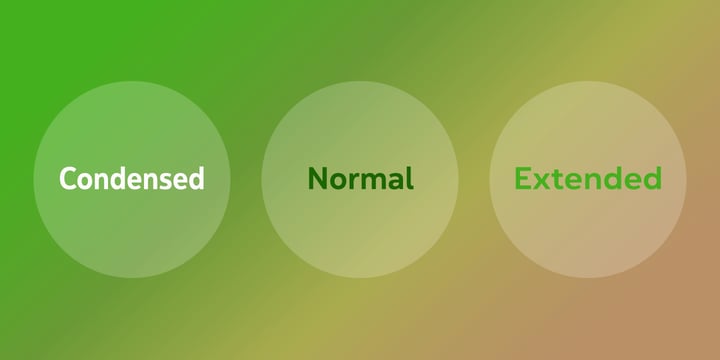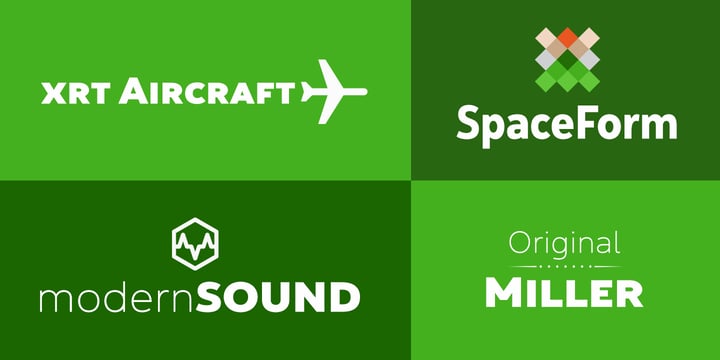
Yorkten™
by insigne
The Yorkten Font Family was designed by and published by insigne. Yorkten contains 54 styles.
Clean and welcoming, the distinct look of Yorkten is remarkably satisfying to the eye. Straight to the point, Yorkton features a fashionable, geometric composition with angled main stems. There are no fewer than fifty-four fonts in the family, all of which are characterized by one of three widths – extended, normal or condensed. Each individual subfamily is equipped with eight weights from Thin to Black with respective Italics, giving Yorkten a breathtaking range of fonts to boast. The greater value for you, though, is its members’ ability to work well together. With a deep toolbox of weights and widths to choose from, this family provides you with significant value and a broad number of design solutions, making sure you have the tools you need for each challenge. So where should you use the font? Jeremy Dooley designed Yorkten’s underpinning structure to be compact. Combined with its superior features and terrific legibility, this versatile font can be used effectively for many jobs, whether in print or on screen. Use it freely for e-books and apps. Yorkten is particularly great for headlines, banners, posters, and websites. As with all insigne fonts, fonts that are well received by the market are expanded into future variants such as rounded or slab serif types. Yorkten’s later expansions will increase the versatility and functionality of the family. There’s no need to wait for these future releases, though. This new face already complements a number of other insigne faces, such as Grayfel, Look, or the Cabrito Superfamily. So what are you waiting for? Get Yorkten today and bask in the rich potential it offers! Get Yorkten and luxuriate in its straightforward multifunctionality!
About insigne
“Type is very much like music,” says Jeremy Dooley. “It is linear, and the notes or phrases have to fit the theme or song.” Jeremy, owner of the one-man foundry, insigne, is a self-taught type designer and a true self-made success story. His label is home to over a hundred font families, many of which have seen great success. Aviano has made our Best of the Year list not just once, but twice and has been featured in Hollywood blockbusters. You may have noticed various iterations of Aviano in Wall Street, Harry Potter, and Thor, and it was used for the branding of Robin Hood. Jeremy considers type to be the foundation of advanced visual communication. One form of communication that the Chattanooga-based designer is drawn to is branding. In 2011, Jeremy, took on the enormous project of coming up with a typeface that would communicate the tone and feeling of his hometown; a font that would effectively brand the city. In 2013, the result, Chatype, was named the official typeface of Chattanooga TN. “Every city needs a brand,” he says, “as every city needs to highlight its own distinctive offerings.” Like many designers, his creations are often the result of his interests. “I especially like seeing my typefaces in movies, on luxury packaging, and for technology companies,” he says. “These are interests of mine, and I often design fonts with those specific applications in mind. It’s very interesting to me that I frequently see fonts used in exactly the way I originally envisioned.” Since he began selling his first font on MyFonts in 2004, the man who will tell anyone who asks, “I’m not really from anywhere,” has continuously drawn inspiration from his many experiences gained from living all over the globe. Want more of Jeremy? The designer sat down with us for an in-depth interview in this issue of Creative Characters.